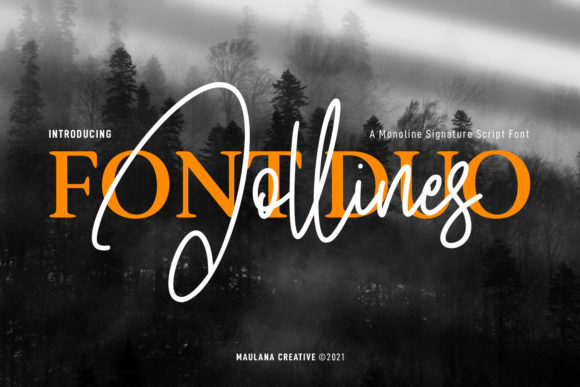
In a visual realm where words dance and impressions linger, the Jollines Font Duo emerges as a captivating symphony of script and serif, whispering tales of elegance and intrigue. Sculpted by the masterful hands of Maulana Creative, this font duo transcends the ordinary, inviting you to embark on a creative odyssey where your designs take center stage.
Crafted with meticulous precision, the Jollines Script dances across the digital canvas like a graceful ballerina, its strokes flowing with a natural rhythm and an enchanting charm. Each letter is a work of art, meticulously shaped to evoke a sense of nostalgia and timeless beauty. Whether gracing wedding invitations, adorning posters, or lending a touch of magic to social media posts, the Jollines Script possesses an innate ability to transform the mundane into the magnificent.
Complementing the script's ethereal allure, the Jollines Serif stands tall and proud, exuding an air of sophistication and authority. Its sharp edges and clean lines lend a sense of structure and balance, creating a harmonious interplay between the two fonts. This serif font elevates headlines, adds gravitas to marketing materials, and brings a touch of refinement to branding projects. Together, the script and serif fonts form an inseparable duo, like two sides of the same coin, seamlessly blending to create a cohesive visual identity.
Beyond its aesthetic appeal, the Jollines Font Duo is a practical and versatile tool for designers and creatives alike. Its PUA encoding grants effortless access to a treasure trove of glyphs and swashes, empowering you to unleash your creativity and add intricate details to your designs. Whether you're crafting logos, designing posters, or creating eye-catching social media graphics, the possibilities are endless with this dynamic font duo.
With the Jollines Font Duo, you hold the key to unlocking a world of creative expression. Its versatility and charm make it an indispensable asset for any designer seeking to elevate their projects and leave a lasting impression. Embrace the beauty of the Jollines Script and Serif, and let your imagination soar to new heights.